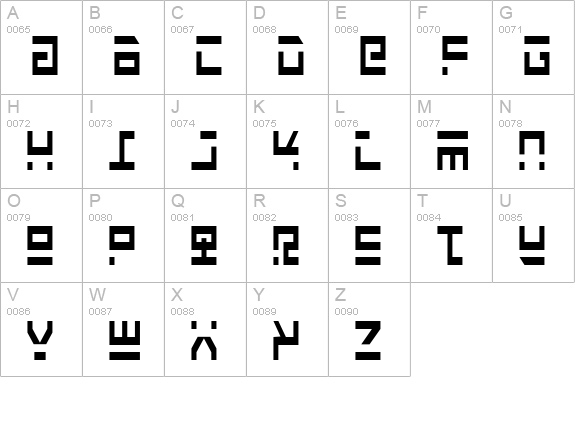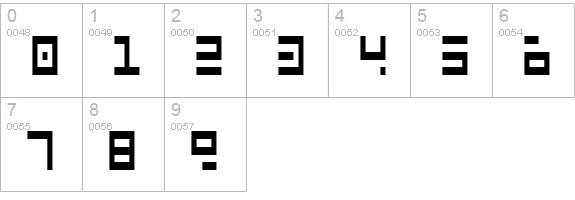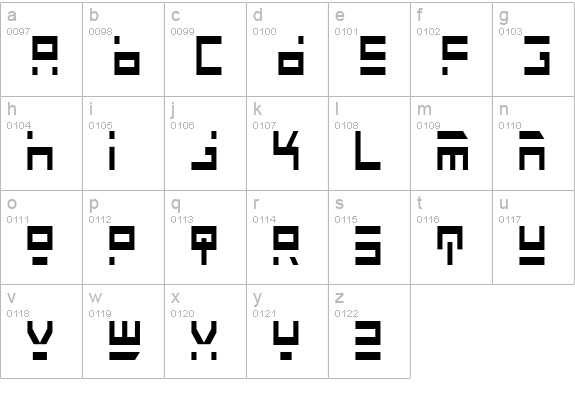
Rocket Type Condensed is a distinctive, condensed-width variant in the Rocket typeface family \xE2\x80\x94 well suited to design and typography projects.
Rocket Type Condensed font is a sleek and modern typeface that exudes a sense of speed and dynamism. Its condensed design makes it perfect for conveying a sense of urgency and efficiency in any project. The sharp angles and bold lines of this font give it a futuristic and cutting-edge look that is sure to make a statement. Best of all, Rocket Type Condensed font is available for free download at FontsMarket.com. This means you can easily add this stylish and versatile font to your design arsenal without breaking the bank. Whether you're working on a poster, flyer, website, or any other creative project, Rocket Type Condensed font is sure to add a touch of modern flair and sophistication. Download it today and take your designs to new heights!